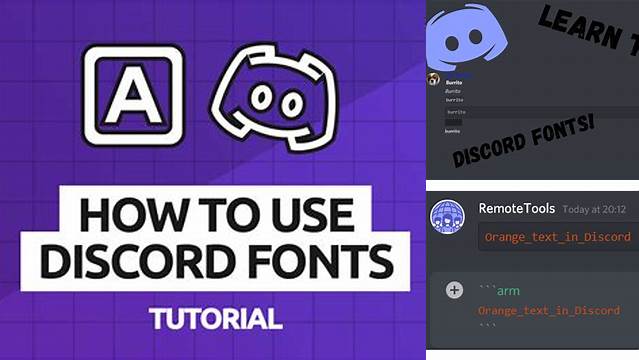
Discord, the go-to platform for gamers, communities, and friends, is more than just a place to chat; it's a place to express yourself. And what better way to stand out than with cool fonts? Forget the boring default text – let's dive into how you can spice up your Discord messages and profiles with a variety of stylish fonts. This guide will walk you through all the methods, from simple tricks to more advanced techniques, ensuring your messages pop and grab attention. Whether you're a seasoned Discord user or just starting, this guide is designed for you. Get ready to transform your Discord experience and make your text as unique as you are!
Understanding Discord Font Basics
Before we get into the cool stuff, let's cover the basics. Discord primarily uses a standard font, but it supports several formatting options that allow you to change the appearance of your text. These include bold, italics, underline, strikethrough, and monospace. While these are great for emphasis, they don't offer a wide range of font styles. That's where the more advanced methods come in. You'll learn how to use external websites and bots to generate a variety of fancy fonts that Discord will render beautifully. We will also discuss the limitations and what you can and can't do. Understanding these limitations ensures you have realistic expectations and can avoid common pitfalls. Let's start with the built-in options. You can use the following markdown to format your text directly within Discord:
- Bold: Wrap your text in double asterisks (
)**This text is bold** - Italics: Use single asterisks ( This text is italic)
- Underline: Use double underscores (This text is underlined)
Strikethrough: Use double tildes (This text is strikethrough)Monospace: Use backticks (
)`This text is monospace`
These simple formatting options are available to everyone. However, their usefulness is limited. They help with emphasis and basic formatting. But they do not provide the creative flair that many users seek. The primary way to achieve unique fonts is by using external tools that convert standard text into stylized text. These tools create special Unicode characters, which Discord then renders as visually distinct fonts. Note: you cannot directly upload custom fonts or use font files within Discord. All customization is done via Unicode characters or bot assistance. You cannot change the font of the entire Discord interface or any of Discord's UI elements. So, focus on your messages and profiles. Now, let's get into the fun part: generating fancy text!
Using Font Generators to Create Stylish Text
Now, let's move on to the exciting part: using font generators to create fancy text. These online tools are the easiest way to generate a wide variety of cool fonts for Discord. All you need to do is type your text into the generator, and it will produce the text in various styles. Then, you can simply copy and paste the stylized text into your Discord messages. The most popular font generators include:
- Cool Fancy Text Generator: This is a widely used tool that offers a vast array of font styles. From classic cursive to unique symbols and patterns, you can easily find a font that suits your style. This generator typically provides options to customize your text with different symbols and decorations.
- LingoJam: Known for its user-friendly interface, LingoJam is a great option for beginners. It provides a variety of font styles and allows you to preview your text in real-time. The site often includes options for special characters and emojis, making your text even more eye-catching.
- YayText: YayText offers a simple and clean interface with several cool font options. It's easy to use and provides quick results, perfect for those who want to add a touch of flair without spending much time.
- Choose a Font: Browse the generated font styles and select the one you like. Generators often display a preview of how your text will look. The generator will present your text in multiple styles. Choose the one that best represents your message and personal style. Experiment with different styles to see what works best.
- Copy and Paste: Copy the stylized text and paste it into your Discord message or profile. Keep in mind that these generators create text using Unicode characters, which will render differently depending on the device and platform. Ensure the font you chose looks correct on your device and on the devices of the people you are sending the message to.
Font generators offer an easy and effective way to instantly enhance your text in Discord. However, keep in mind that some fonts might not render correctly on all devices or platforms. Always test how your text appears to ensure it looks as intended. If you encounter issues, try a different font style or a different font generator. Also, keep your use of fonts balanced. Overuse can make your message difficult to read and less appealing. A little bit of font flair goes a long way!
Advanced Techniques: Bots and Customization
While font generators are great for quick and easy font changes, you can also use Discord bots to achieve more complex text formatting and customization. Some bots provide additional features beyond basic font generation, such as the ability to create custom text commands or add special effects to your messages. Let's explore some of the popular methods:
Conclusion: Level Up Your Discord Game with Cool Fonts
Adding cool fonts to your Discord messages is a fun and effective way to express yourself, grab attention, and make your conversations more engaging. From simple formatting options to advanced bot integrations, you have many tools at your disposal. By following the tips and tricks, you can avoid common pitfalls and elevate your Discord experience. Experiment with different font styles, find what works best for you, and let your personality shine. Have fun, be creative, and remember to always prioritize readability and clarity! Now, go forth and make your Discord messages stand out! Embrace the power of fancy text to transform your messages into creative expressions. With the right tools and a bit of creativity, you can turn your Discord conversations into truly unique and engaging experiences. So, go ahead and start experimenting, and enjoy the power of cool fonts on Discord.